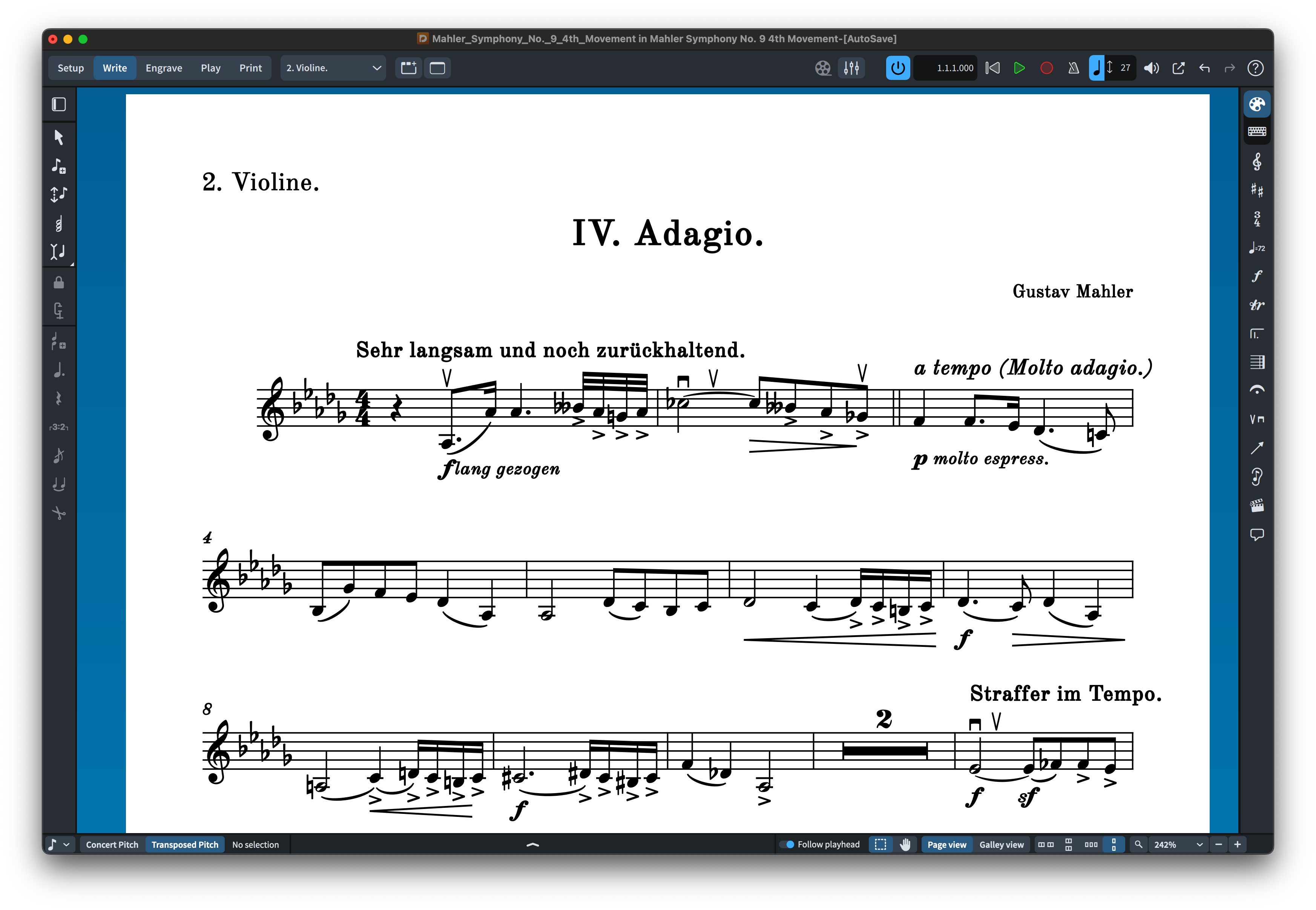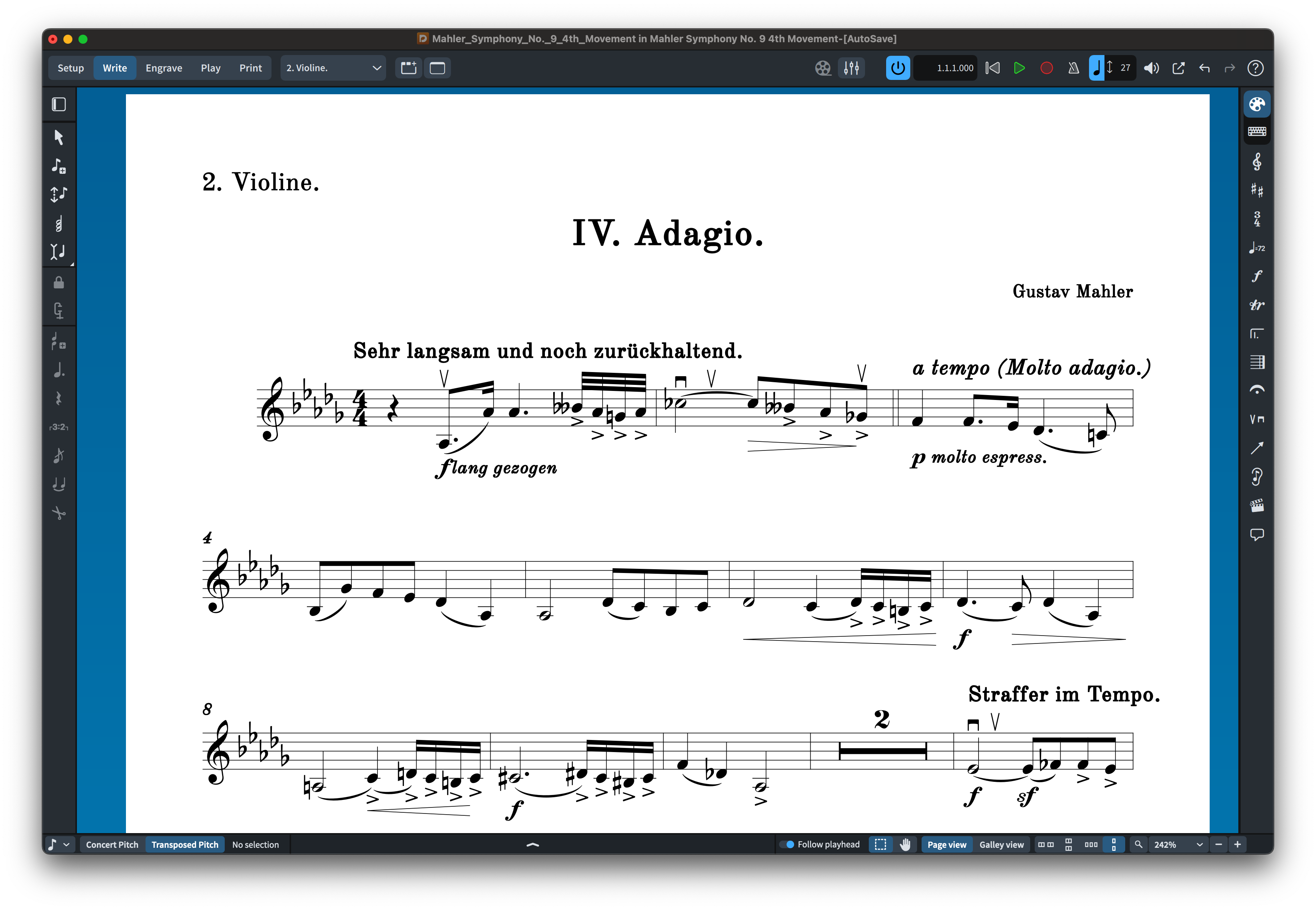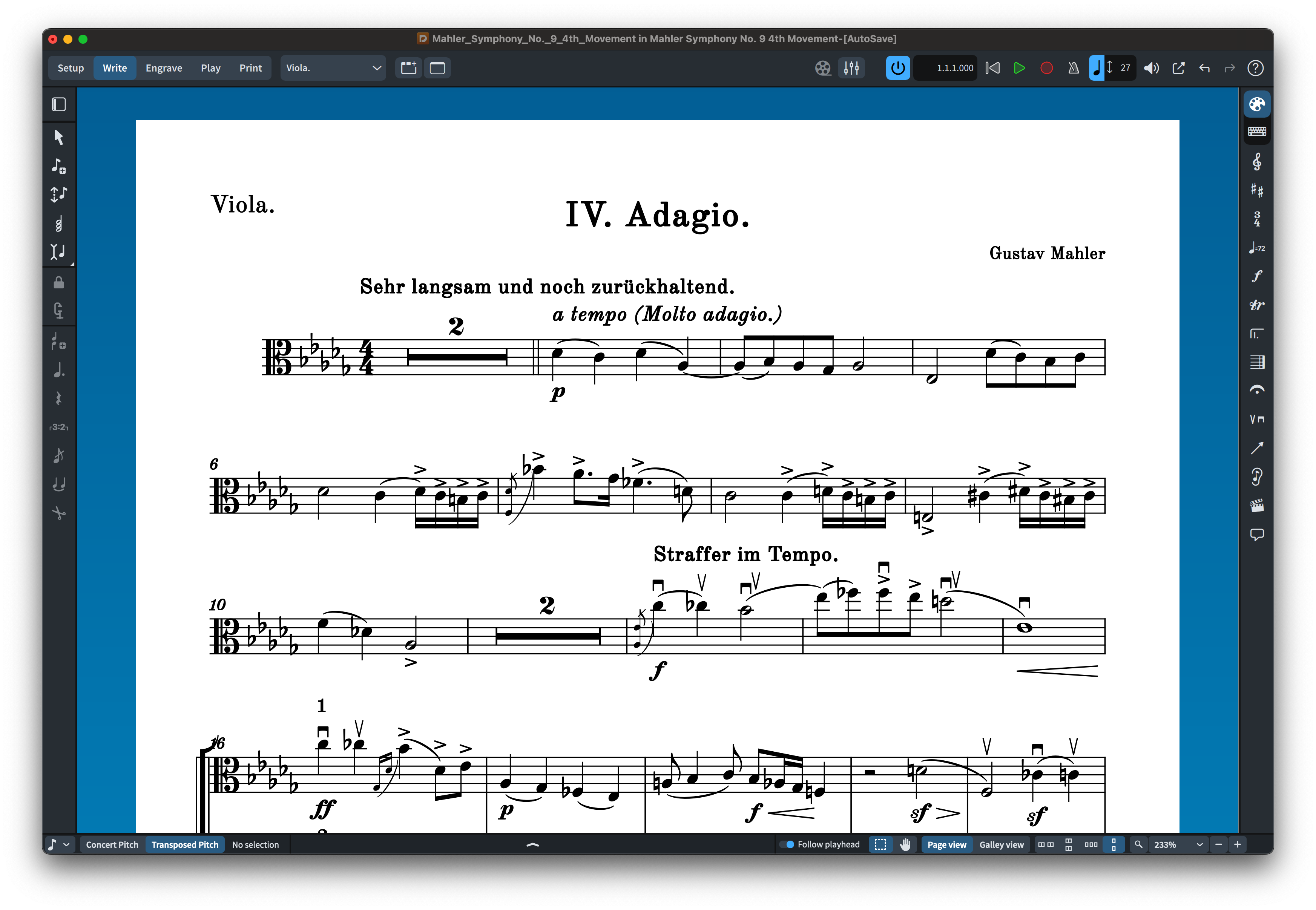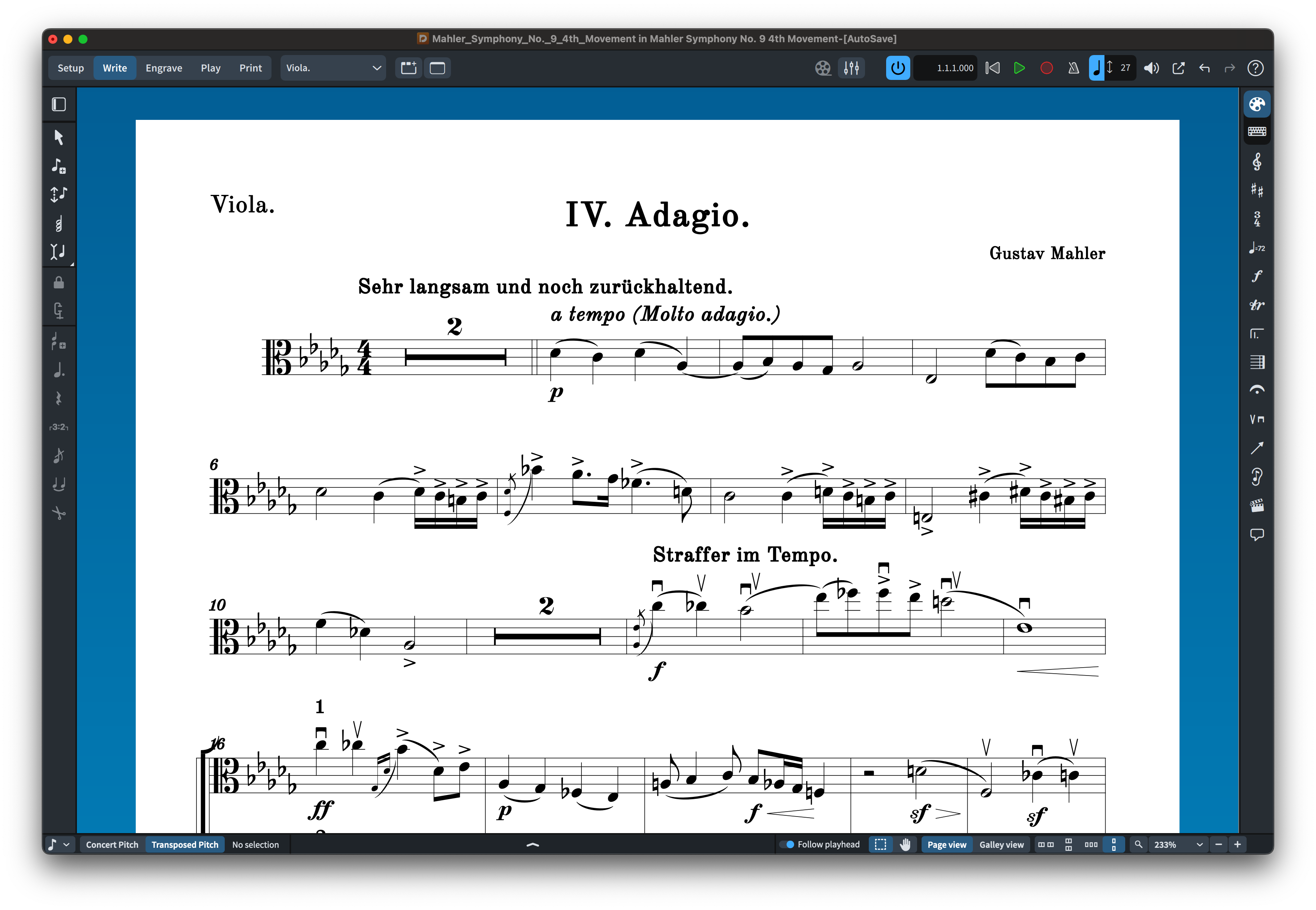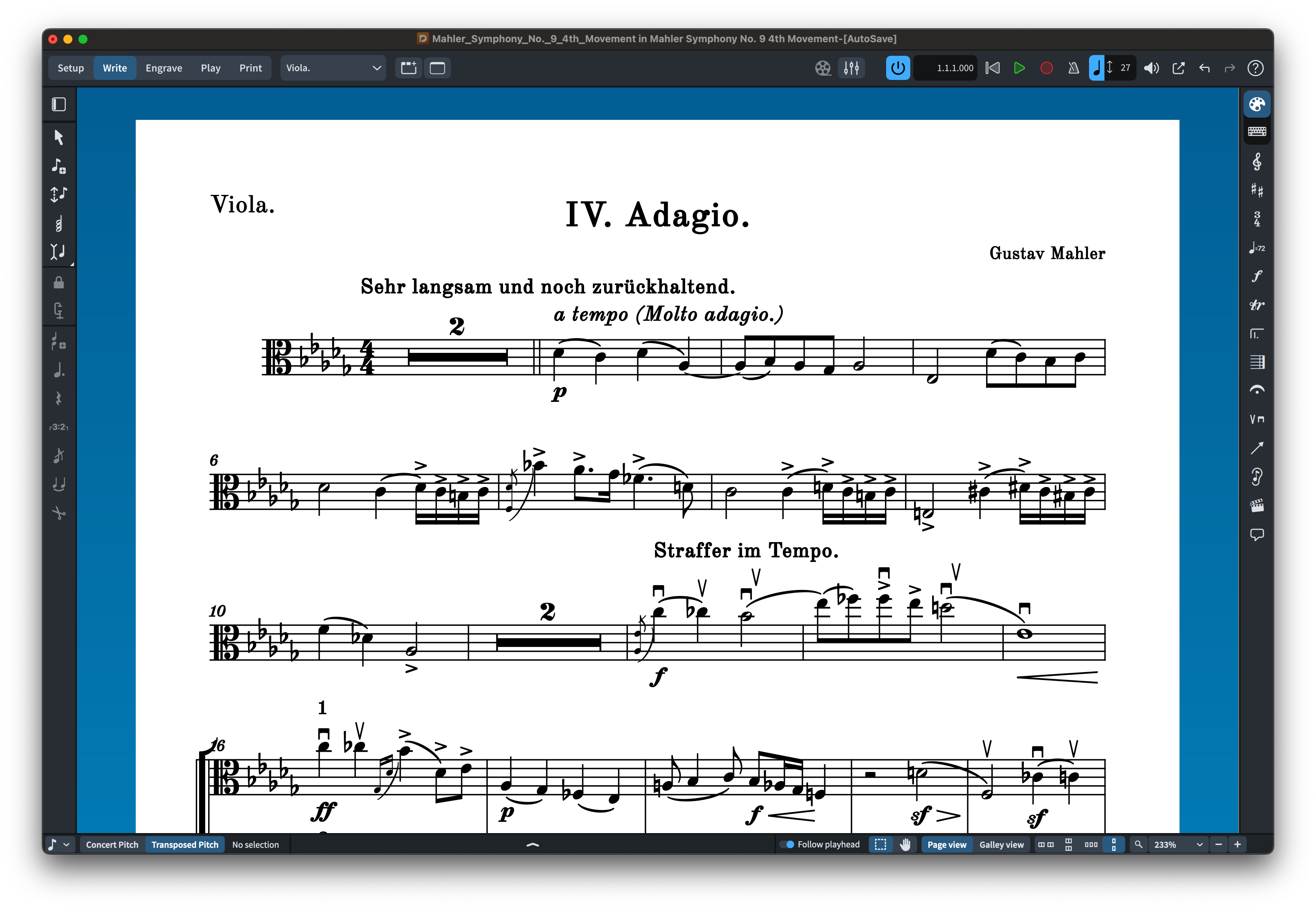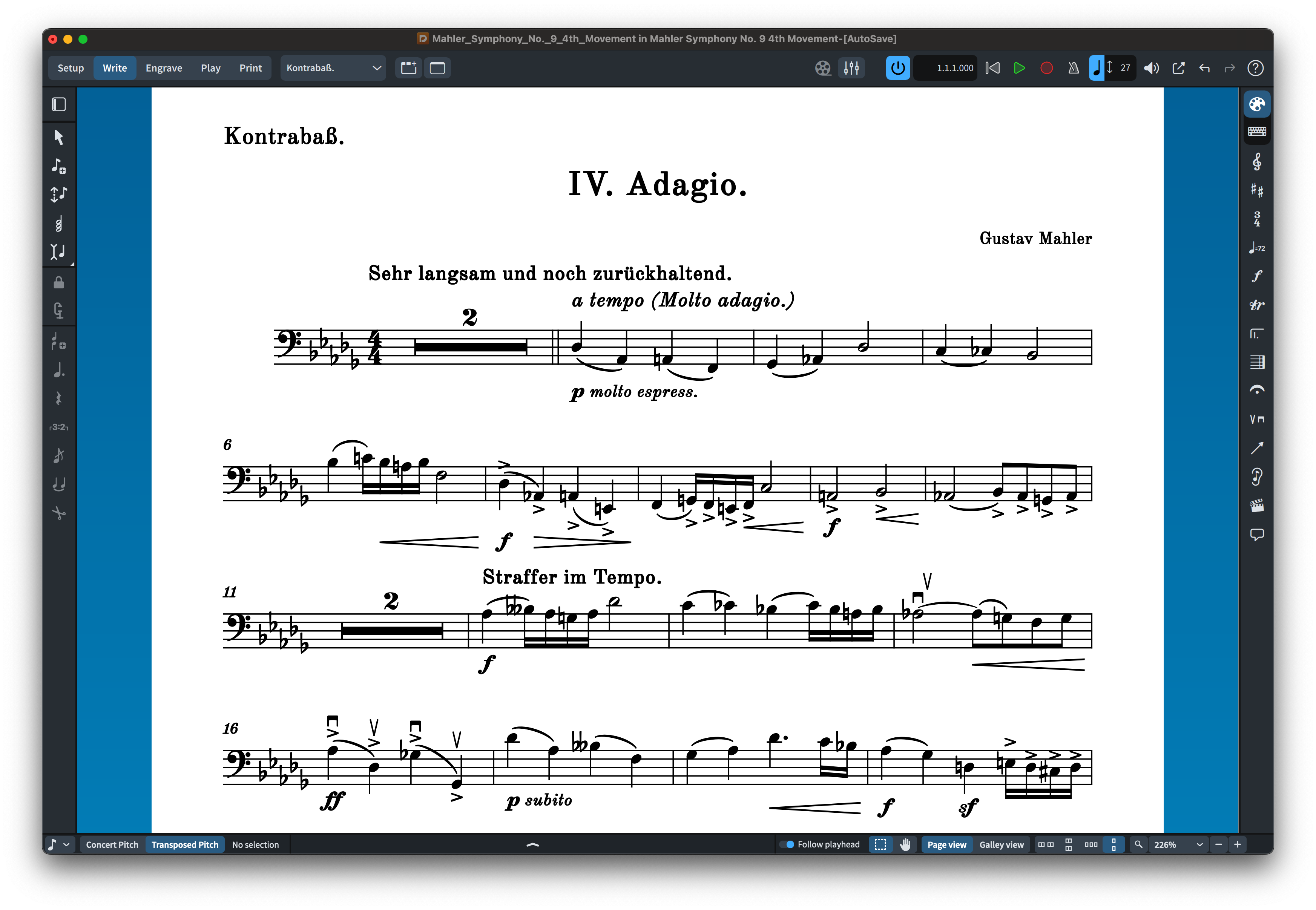
Vintage BH (SMuFL) Fonts
(Emulating Breitkopf & Härtel)
3 ELEGANT MUSIC FONTS FOR A STANDARD AND LIGHTER MODERN MUSIC NOTATION!
Vintage BH FOR DORICO & FINALE V27 FEATURE 3 SMUFL COMPLIANT MUSIC FONTS: “Vintage BH”, “Vintage BH STD” & “Vintage BH Light”.
Vintage BH fonts are elegant engraver music fonts with a Standard (Vintage BH), a Heavy (Vintage BH STD) and a Lighter appearance (Vintage BH Light), yet more robust than some other music fonts, but more accurately representing a vintage look of smooth music notation style. Vintage BH fonts can be used for modern sophisticated Pop or Rock, Jazz Bands, Piano and Vocals, Choirs, Marching Bands, and all types of musical ensembles even Symphonies! Vintage BH comes with a unique subtle individuality, but with a softer and fatter look, making it a great use for school manuals and education materials. Both fonts look fun and easy and will not scare your students! Vintage BH fonts work with Finale v27 and Dorico™ Pro version as an alternative to Finale Maestro and Bravura font, or any other SMuFL font.
An excellent font with three weights, bringing an elegant and refined touch to scores. It is highly readable and has a beautiful, inky quality that adds warmth and character to the notation. The different weights provide great flexibility: the lighter variants suit solo and chamber music perfectly, while the bolder option enhances clarity in orchestral scores. I am especially fond of the notehead and clef designs, which feel both distinctive and balanced.